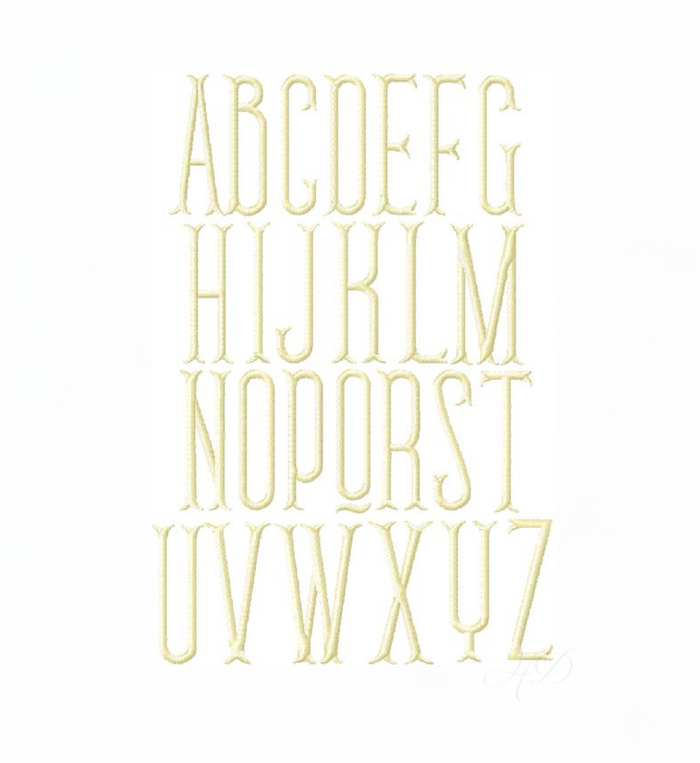
Fishtail Satin Embroidery Font 4x4
Introducing the Fishtail Satin Embroidery Font 4x4, an exquisite addition to your embroidery machine toolkit. This elegant satin stitching font is perfect for creating personalized monograms that stand out. It includes uppercase letters along with an accent dot for a distinctive touch.